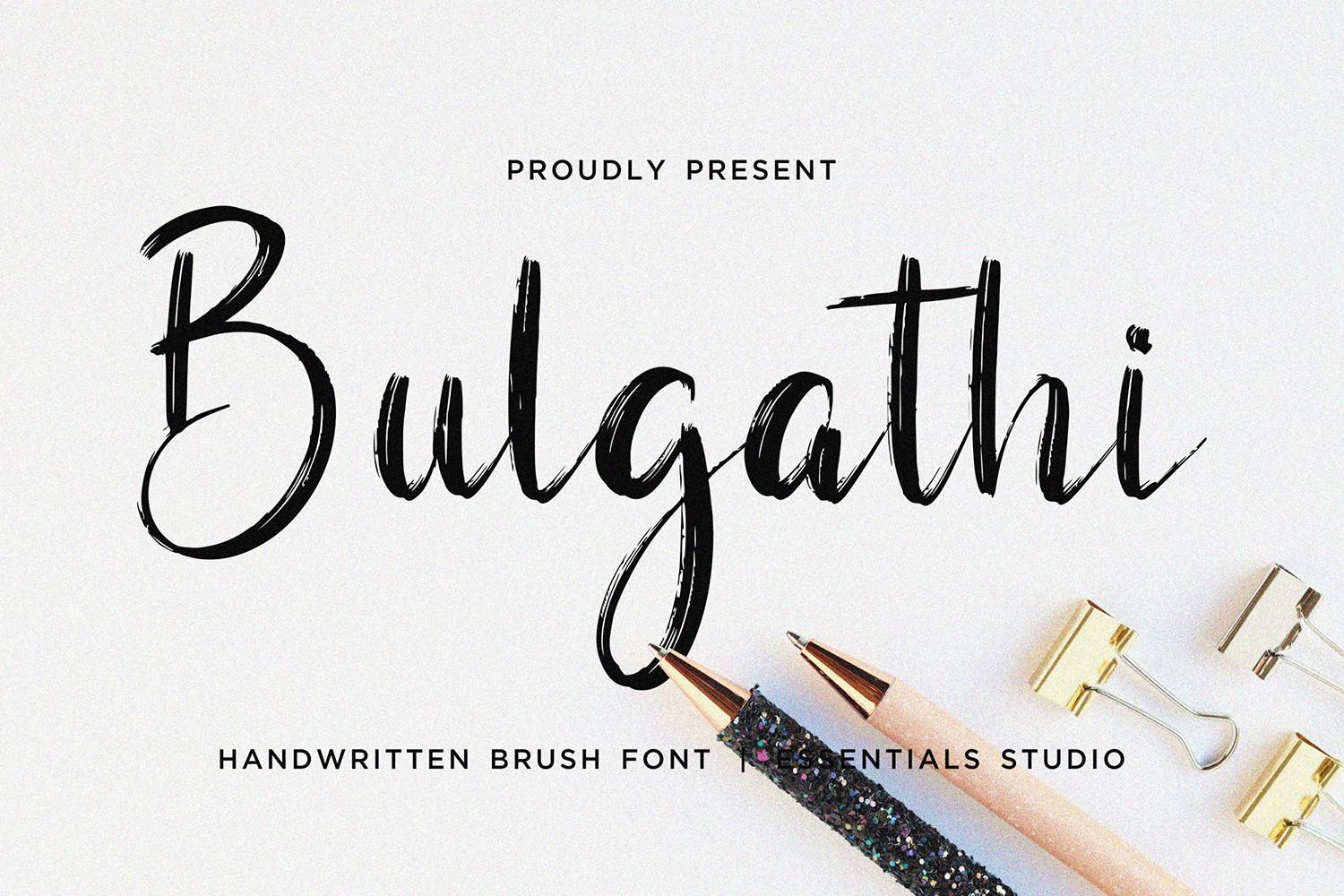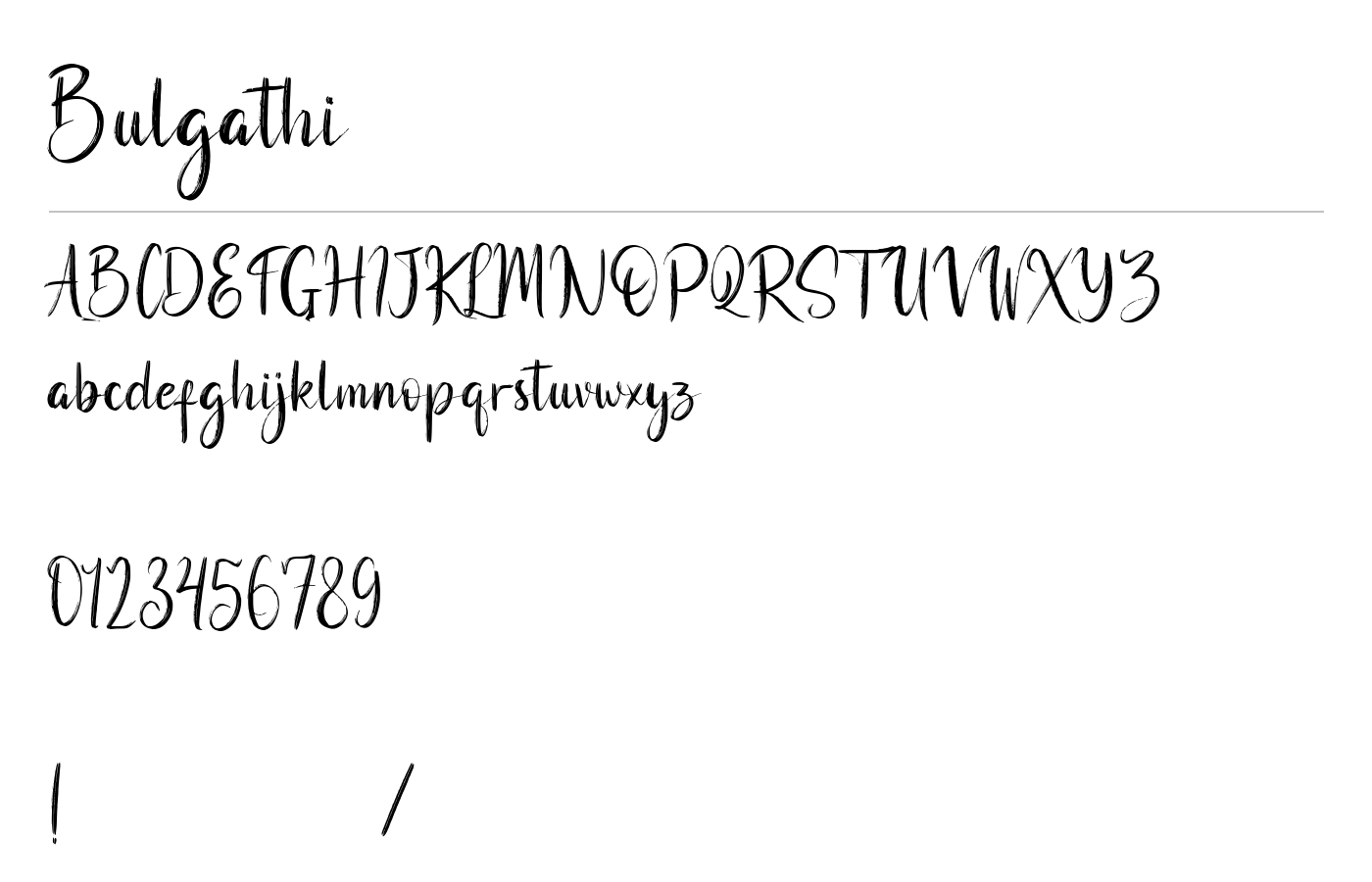
Bulgathi is a playful and elegant script font featuring tall, slender letterforms with a handcrafted, brush-like texture. Its light weight and smooth, flowing strokes give it a charming, casual feel that works beautifully for creative branding, invitations, and feminine design projects. This font shines in settings where a personal, artistic touch is desired, such as logos, greeting cards, or social media graphics.
Bulgathi Font
About Bulgathi Font
| Font family | Bulgathi Font |
| Designer | Bagus Panji Asmoro |